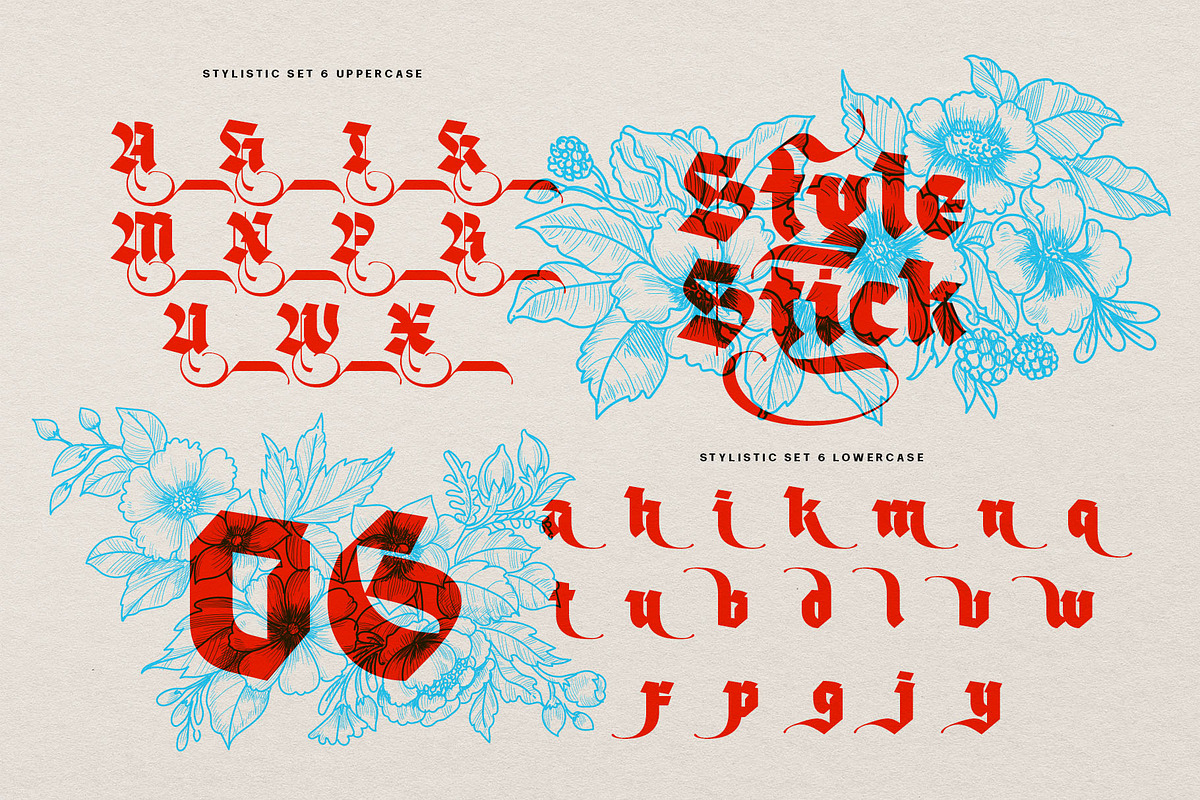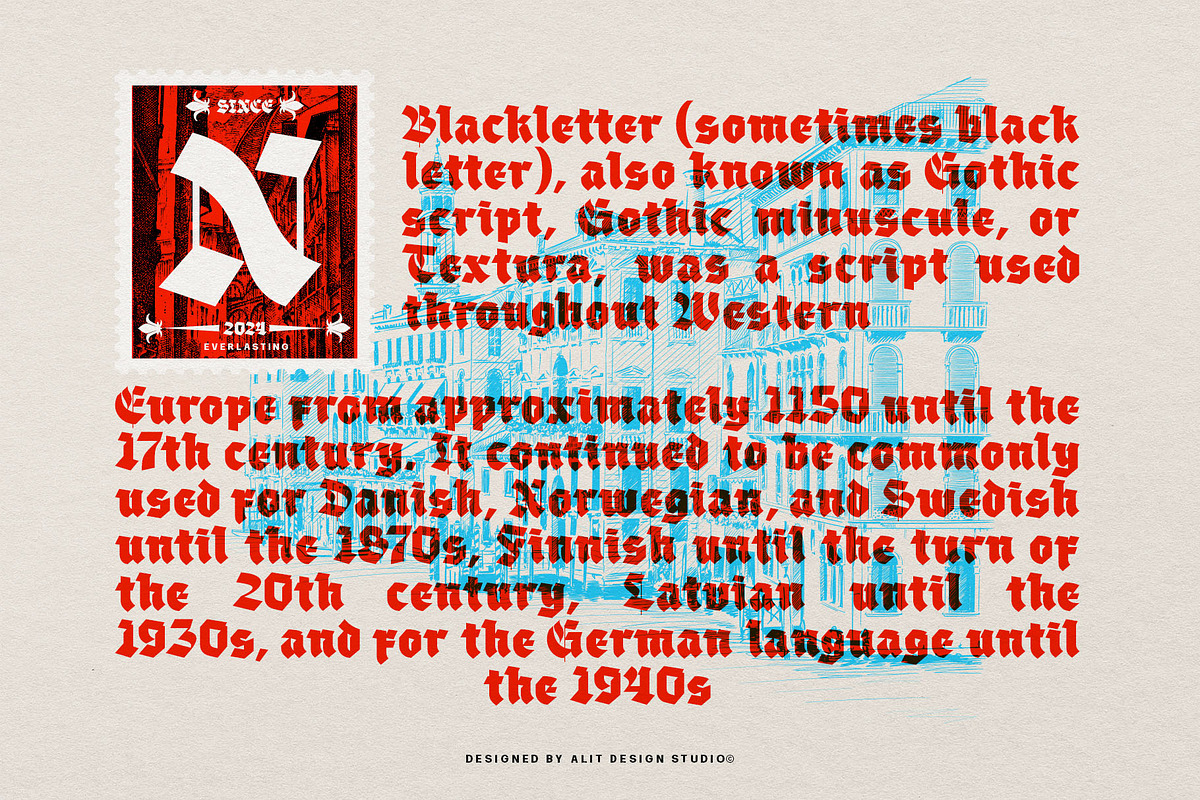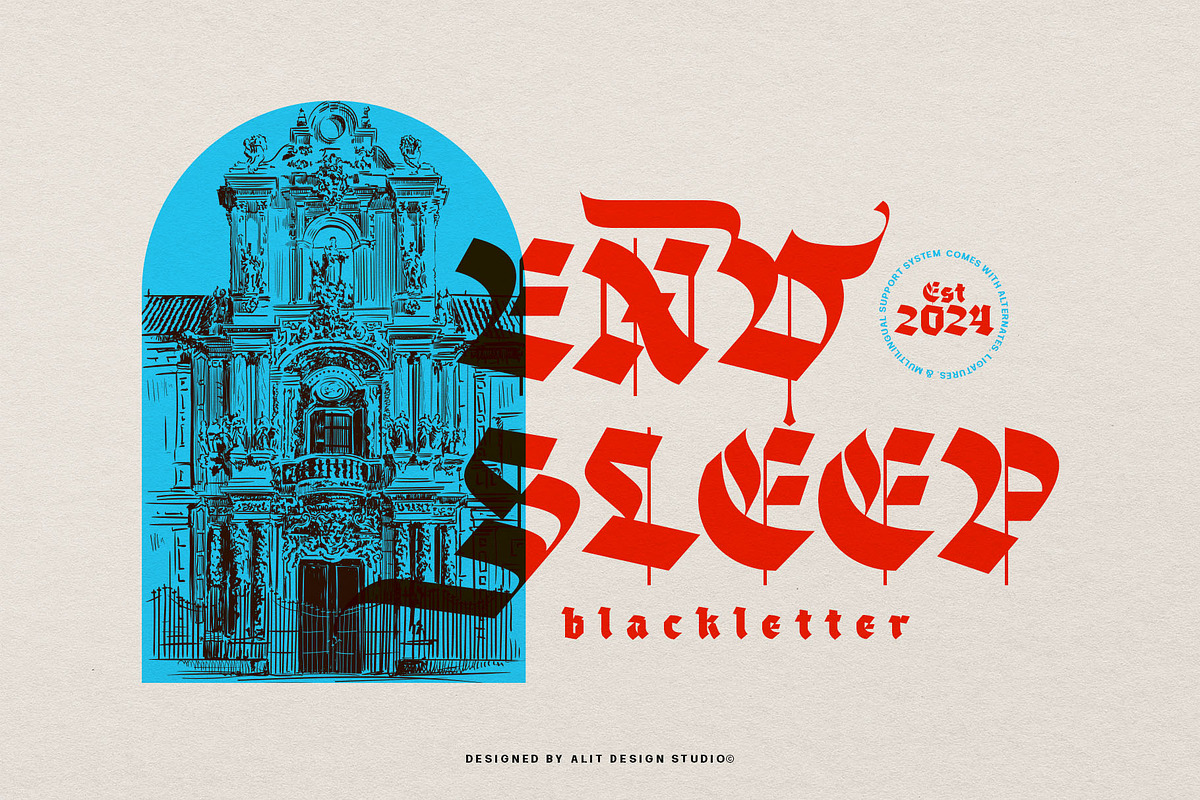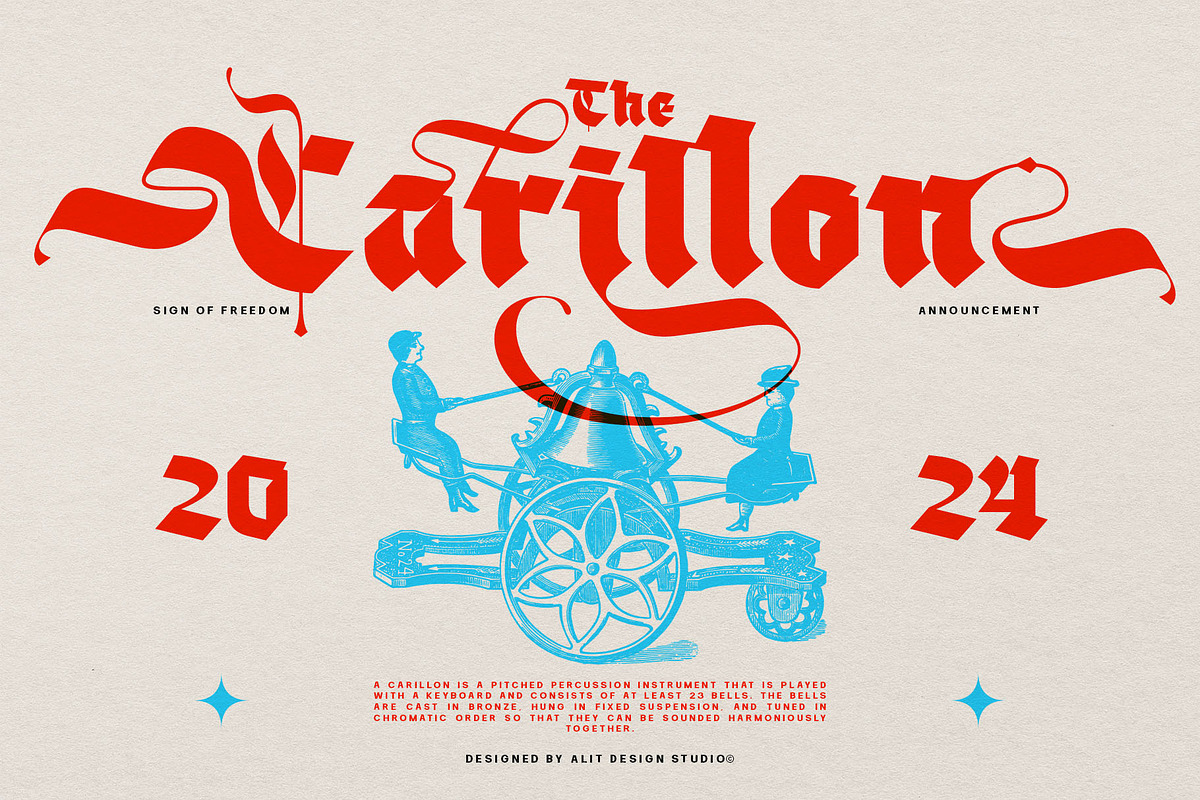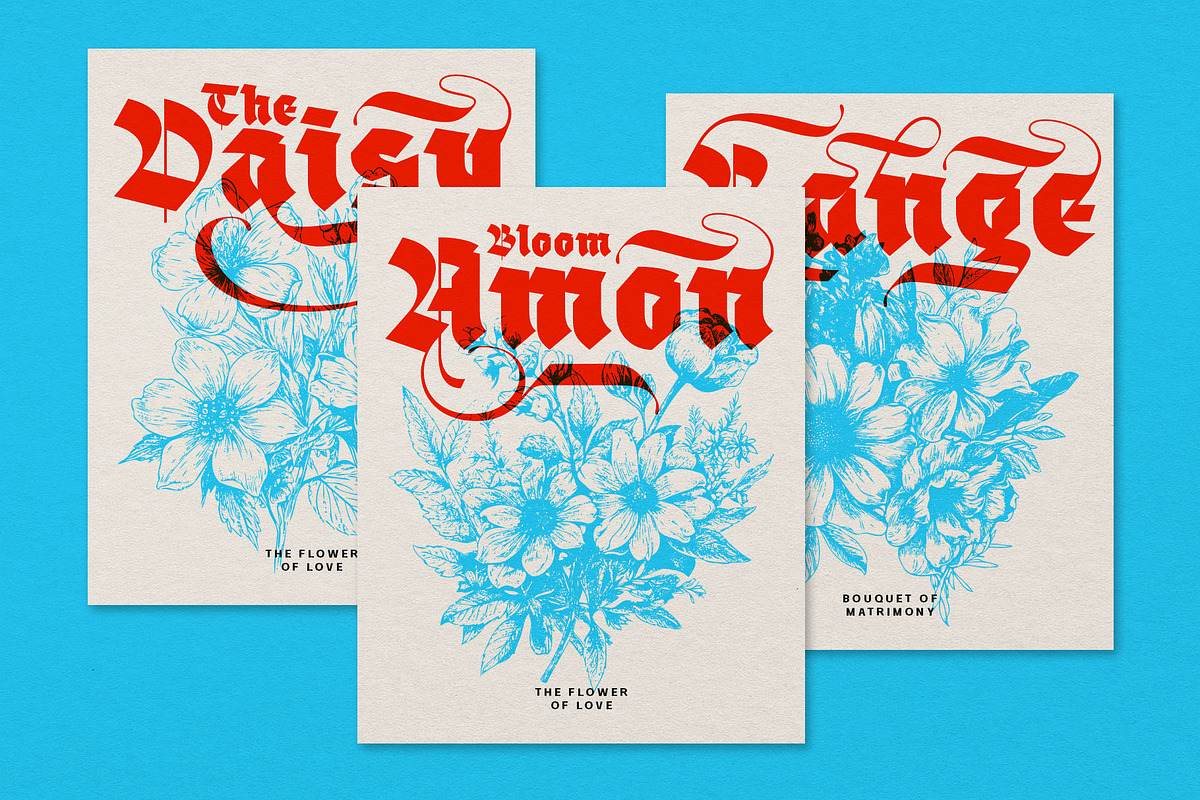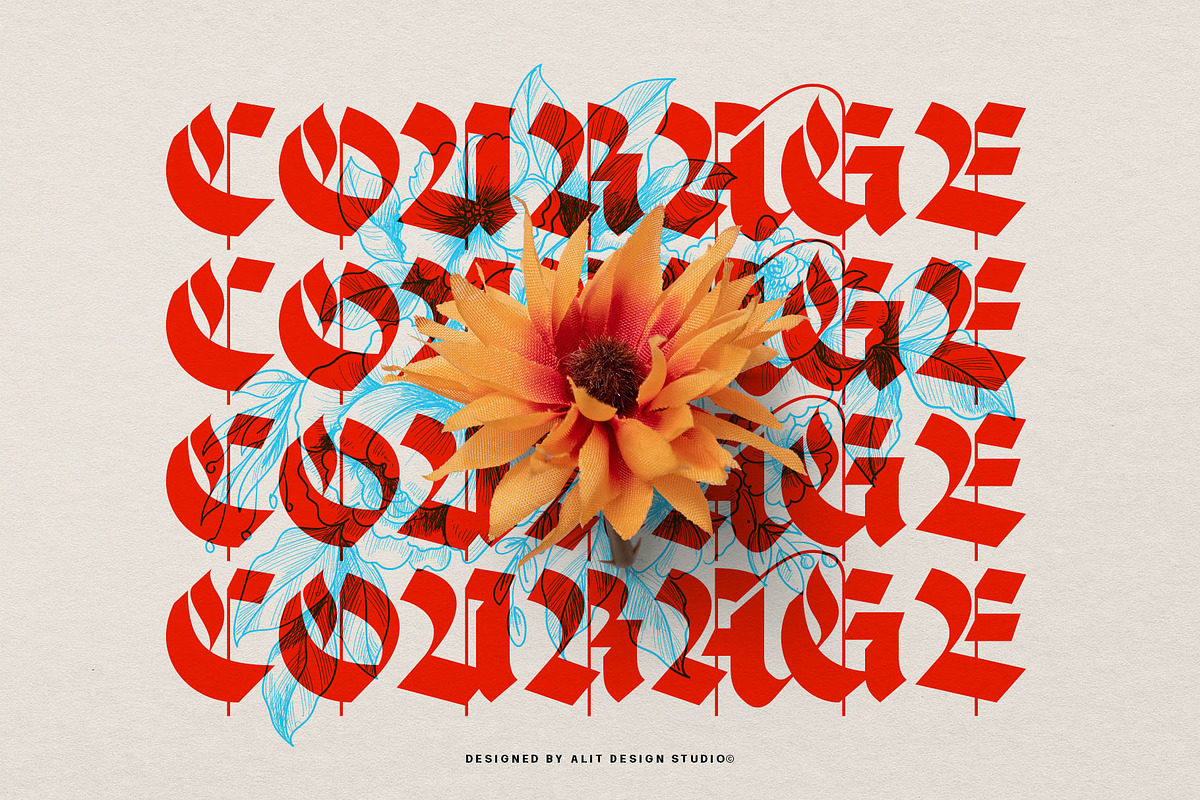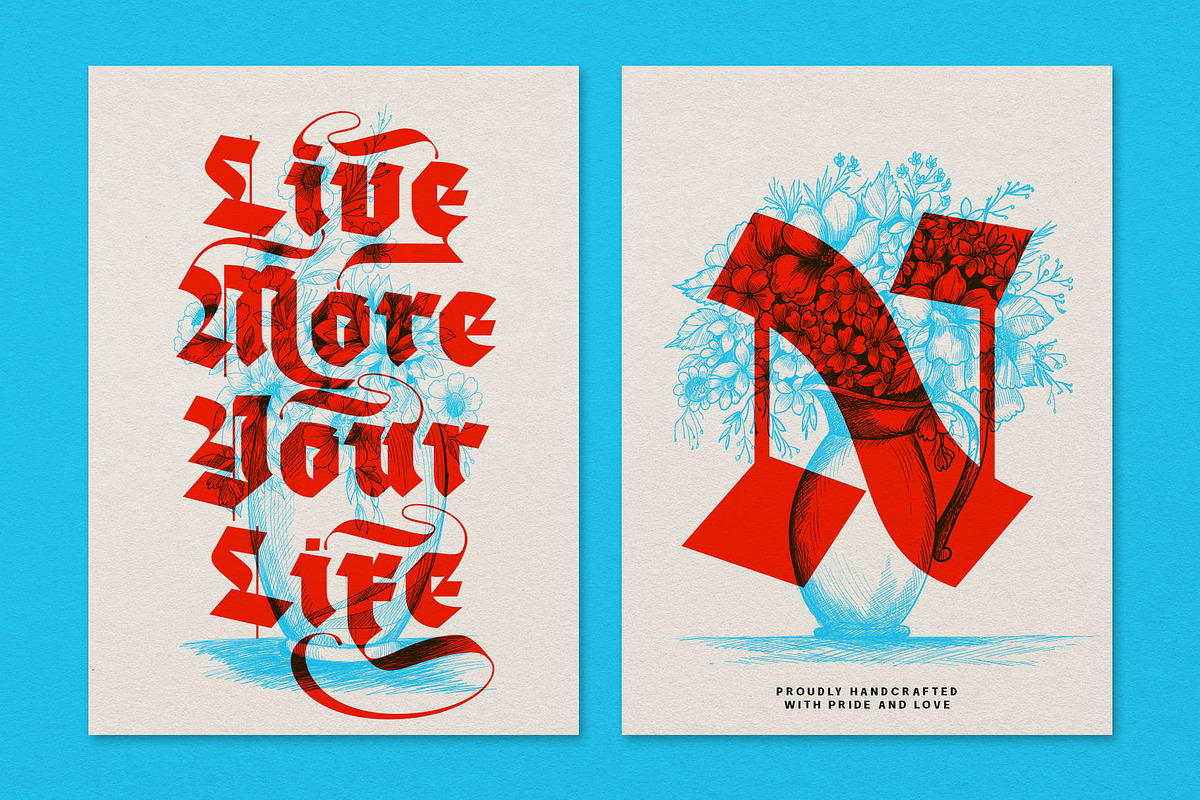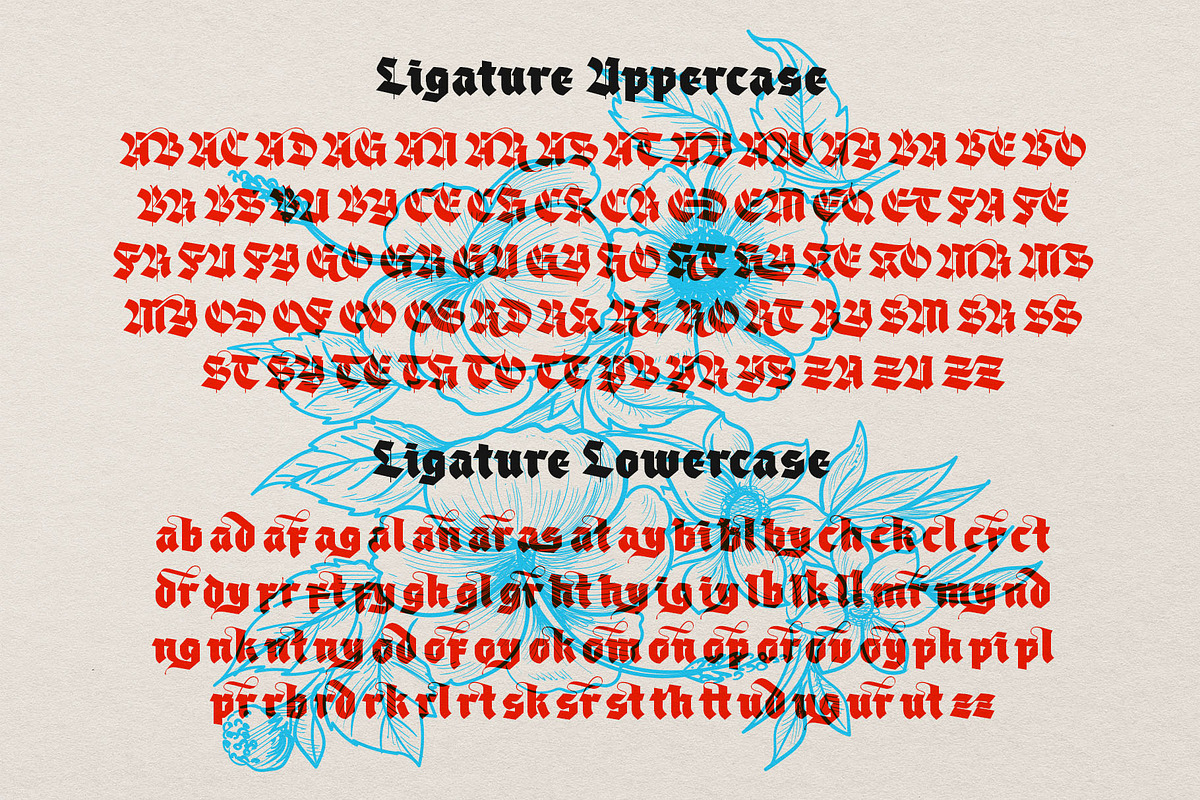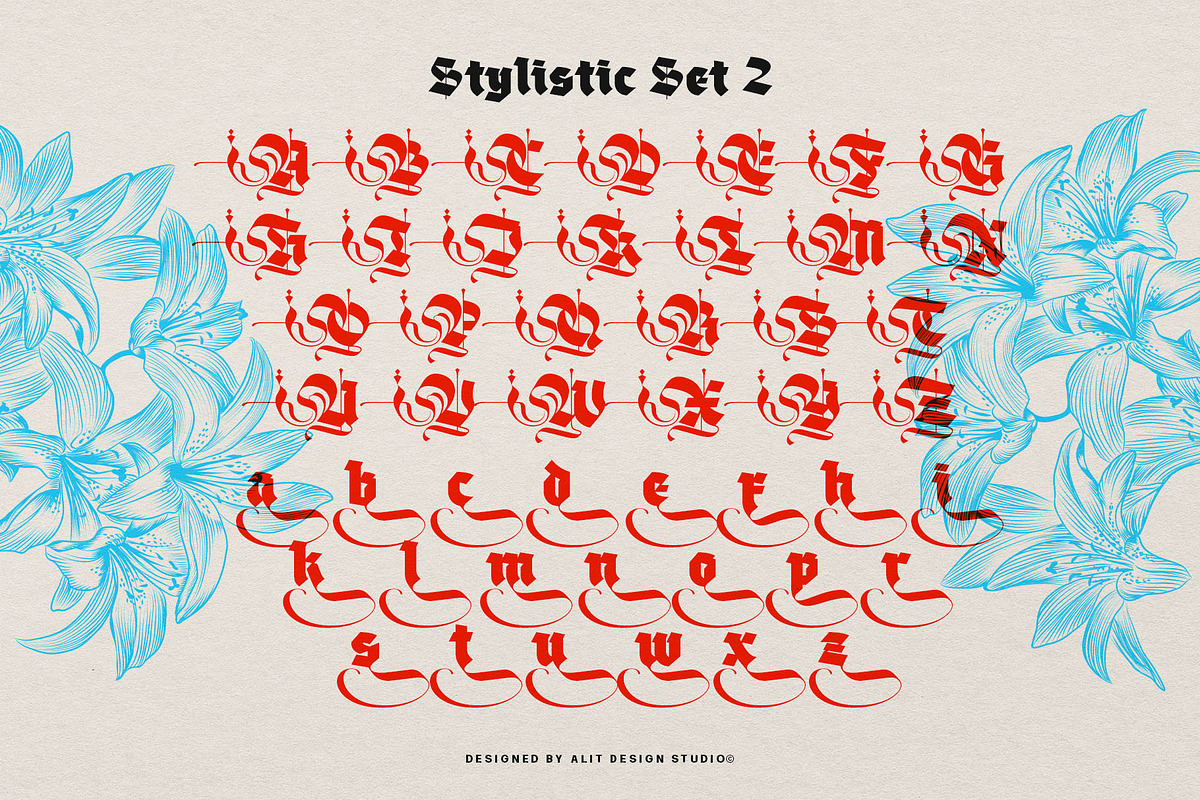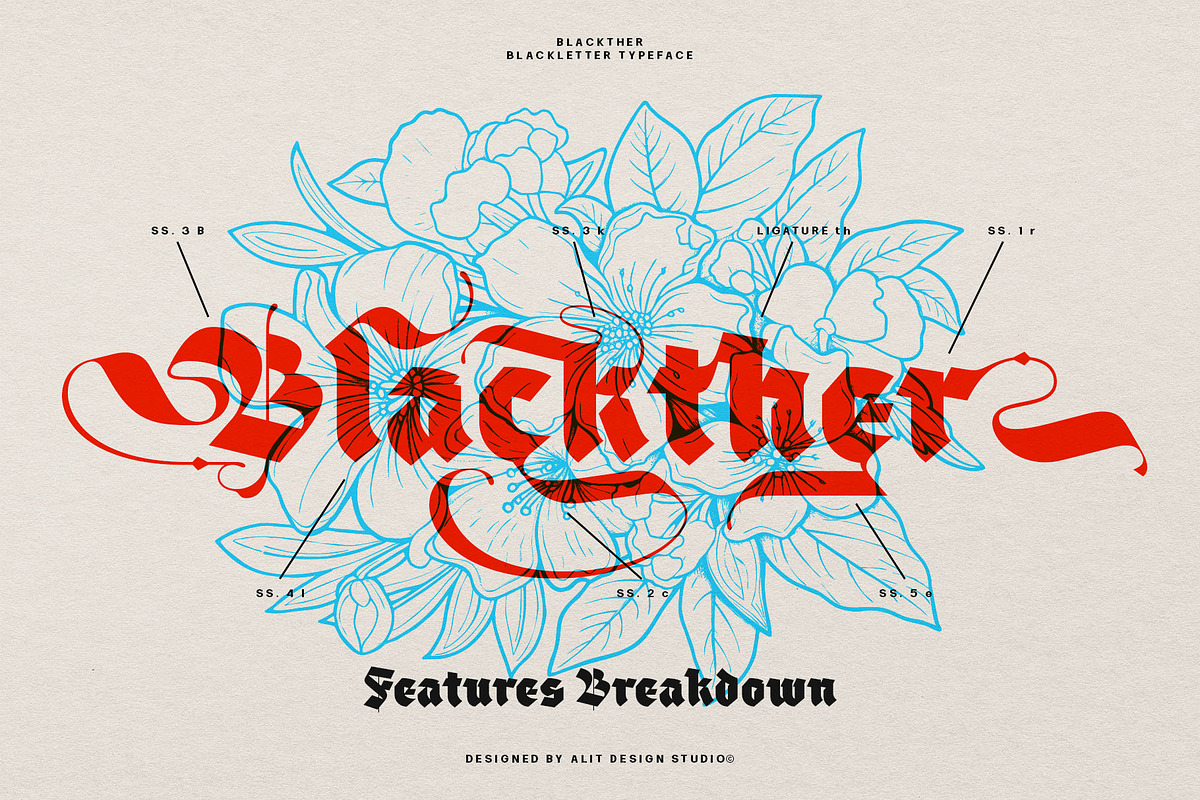
Blackther Typeface
Introducing Blakther Typeface, a bold Blackletter font exuding timeless elegance and striking presence. With its commanding strokes and intricate details, Blakther Typeface adds a touch of sophistication to any design project.
Featuring an array of captivating swash variations, Blakther Typeface offers unparalleled versatility. Whether you're crafting a logo, designing invitations, or enhancing your branding, these swashes provide endless creative possibilities.
But that's not all – Blakther Typeface comes fully equipped with ligatures and alternates, ensuring seamless connectivity and fluidity in your text. Say goodbye to mundane typography and hello to dynamic visual storytelling.
What truly sets Blakther Typeface apart is its extensive multilingual support and inclusion of PUA Unicode. Now, you can effortlessly communicate your message in various languages while maintaining the integrity of your design.
With a vast repertoire of 889 glyph characters, Blakther Typeface empowers you to express yourself with unparalleled precision and finesse. Elevate your projects with the unmatched sophistication of Blakther Typeface – where bold meets beautiful.